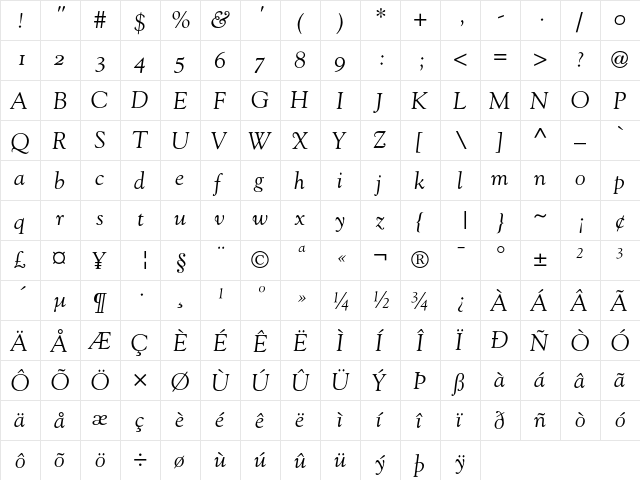
Goudy Old Style Italic Old Style Figures Font Preview
Goudy Old Style Italic Old Style Figures
Design Context for Goudy Typeface
Goudy offers clean, dependable letterforms without strong stylistic allegiance, making it a practical choice for designers who need flexibility. The dynamic lean of this cut emphasises speed and emphasis in any layout.
Pro Tip: Try Goudy for annotation and caption copy alongside an upright companion — the contrast in angle creates a dynamic but ordered typographic system.